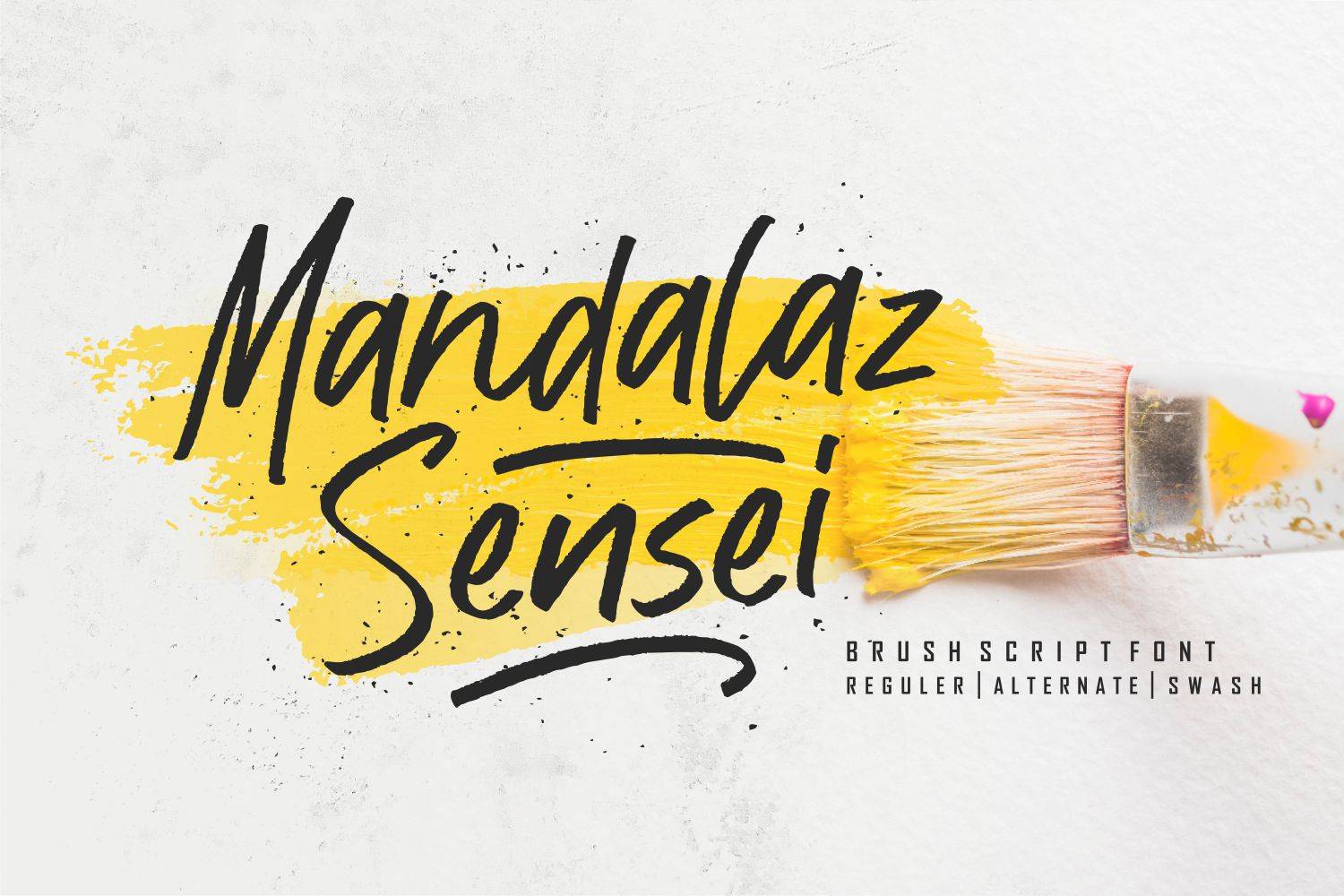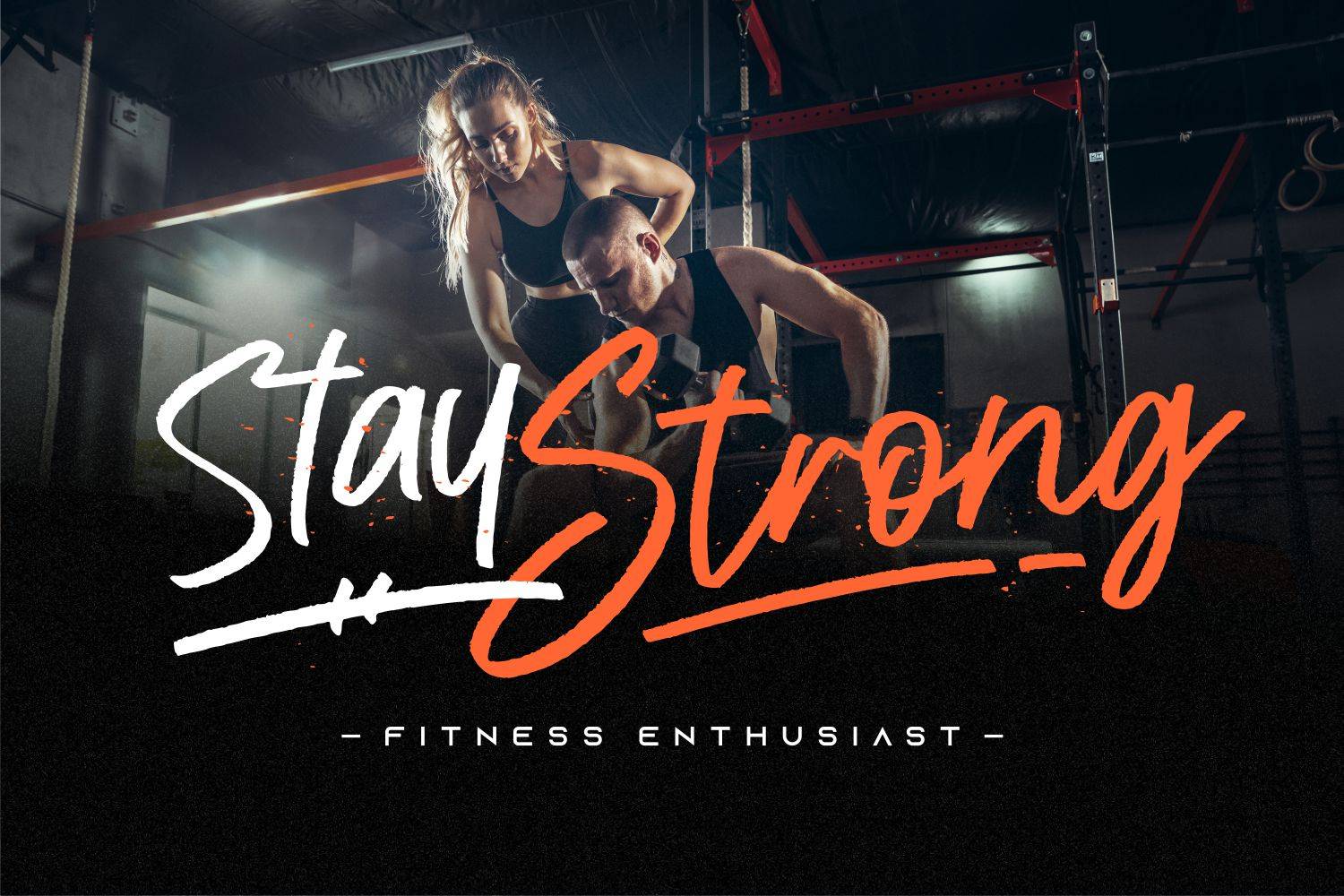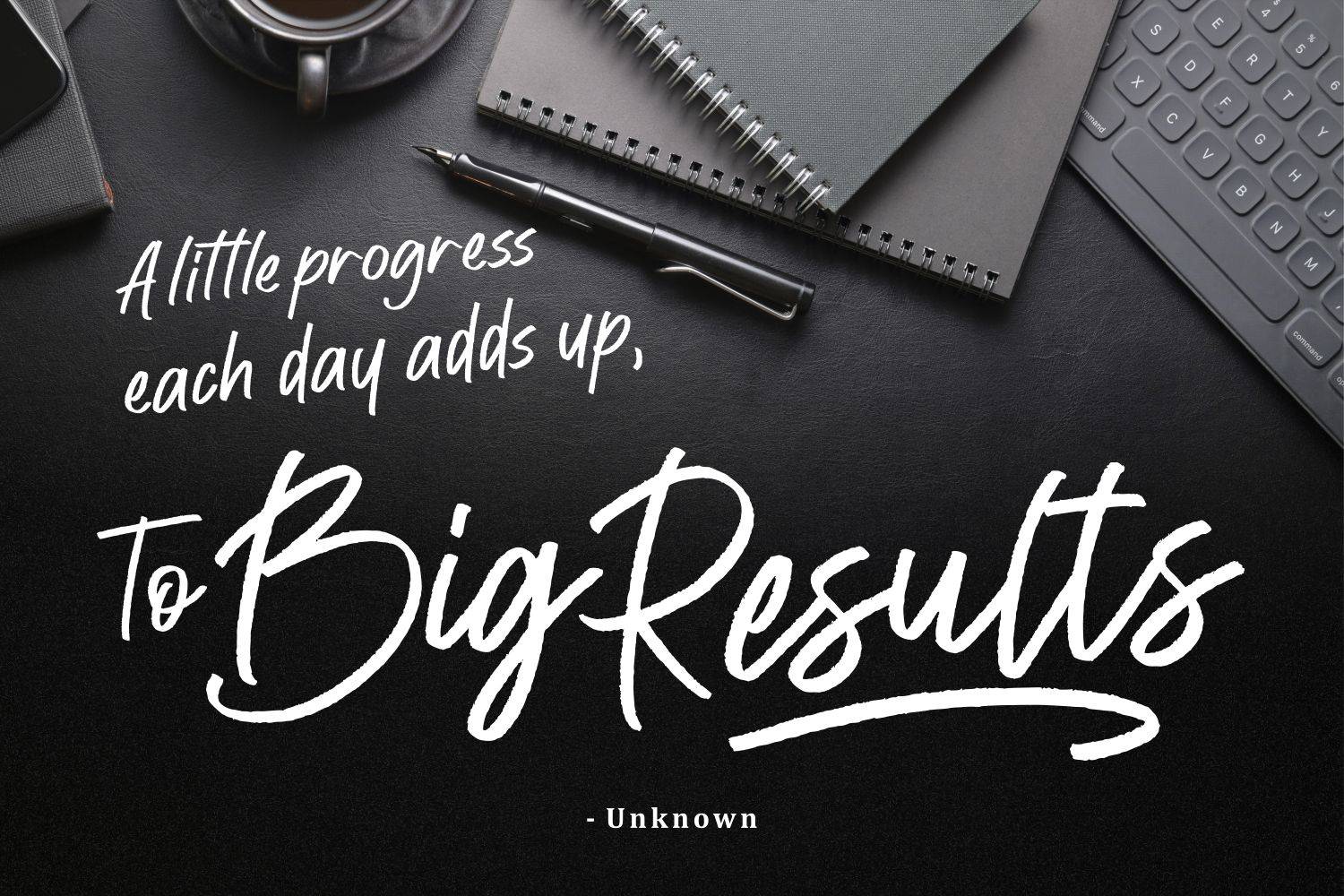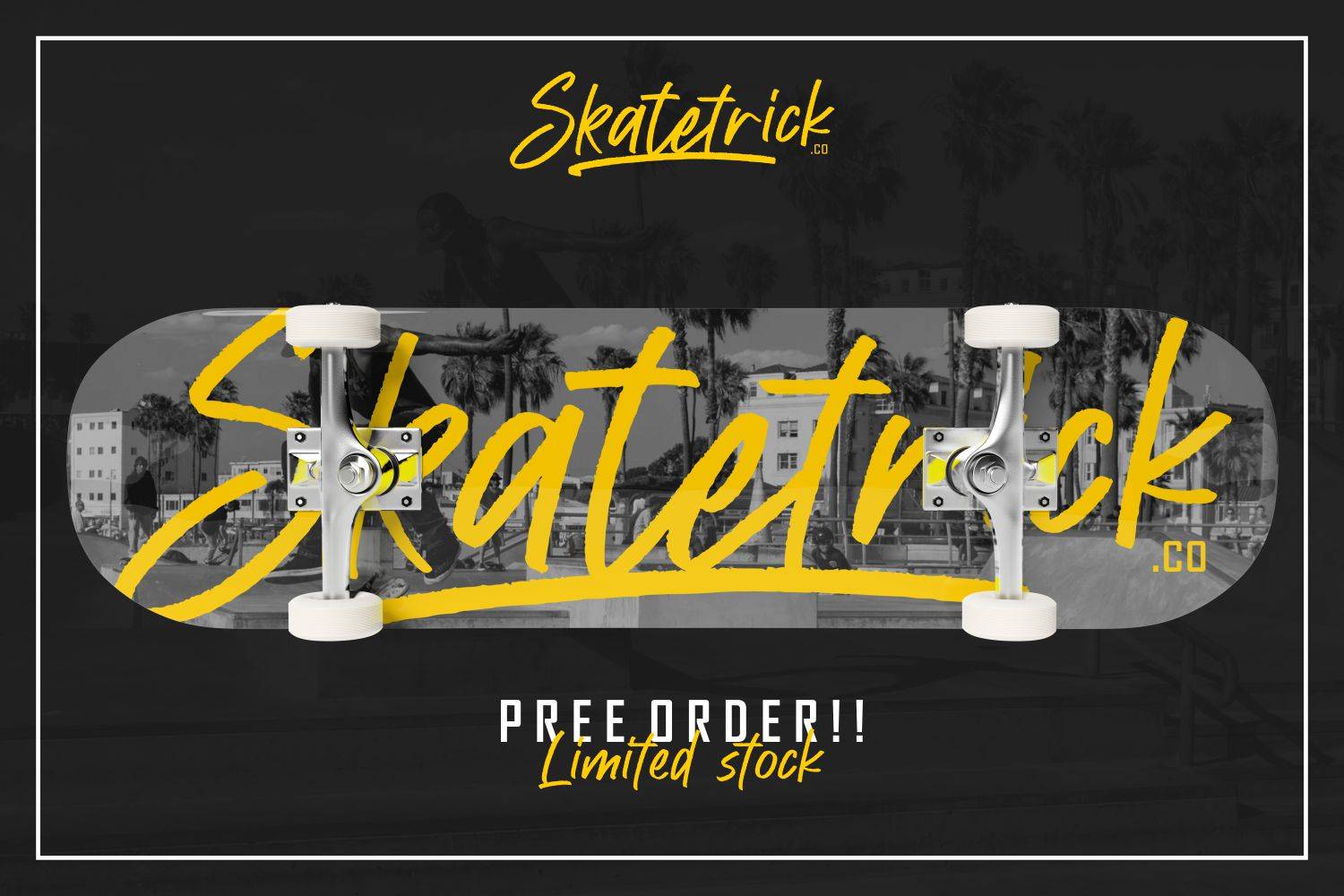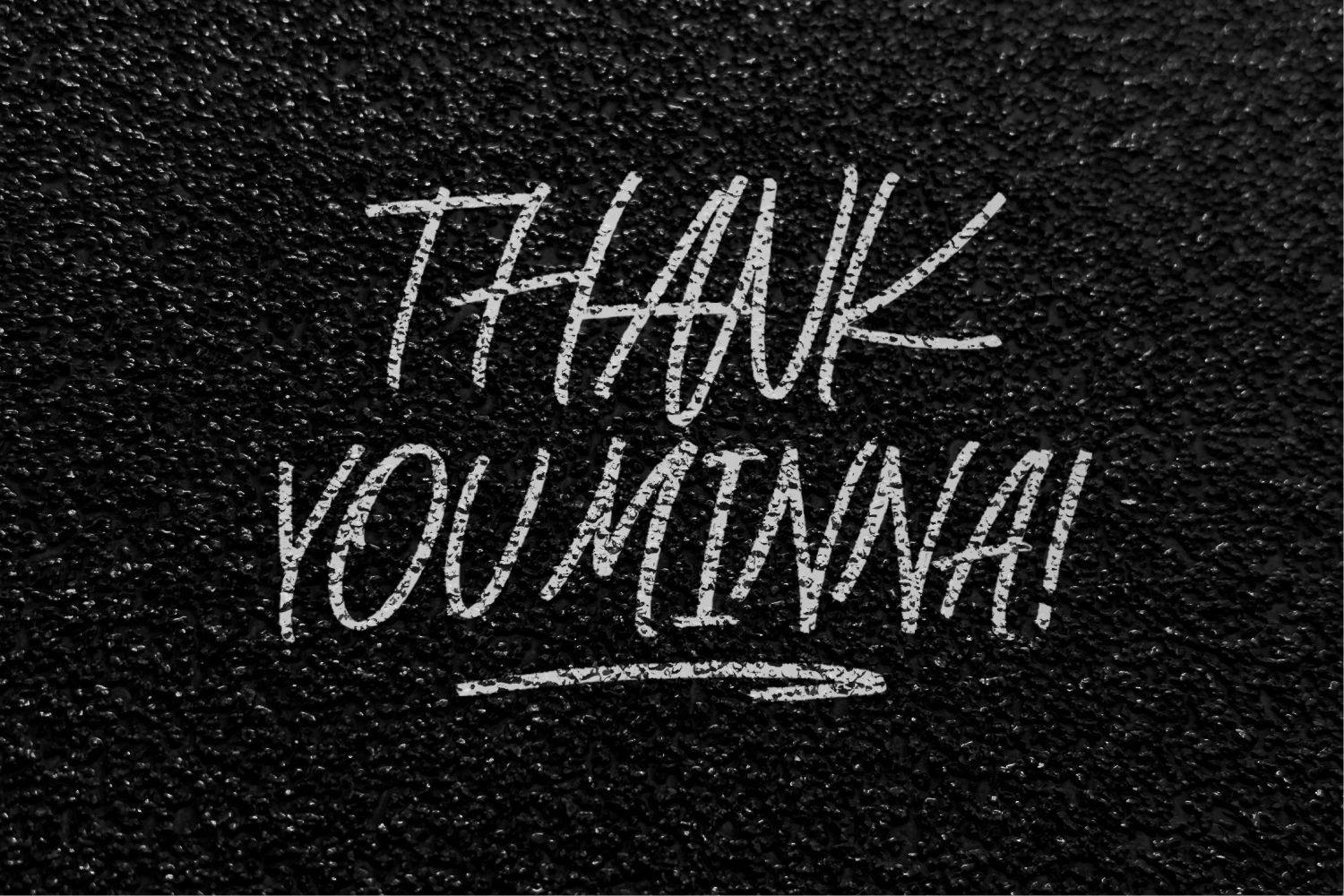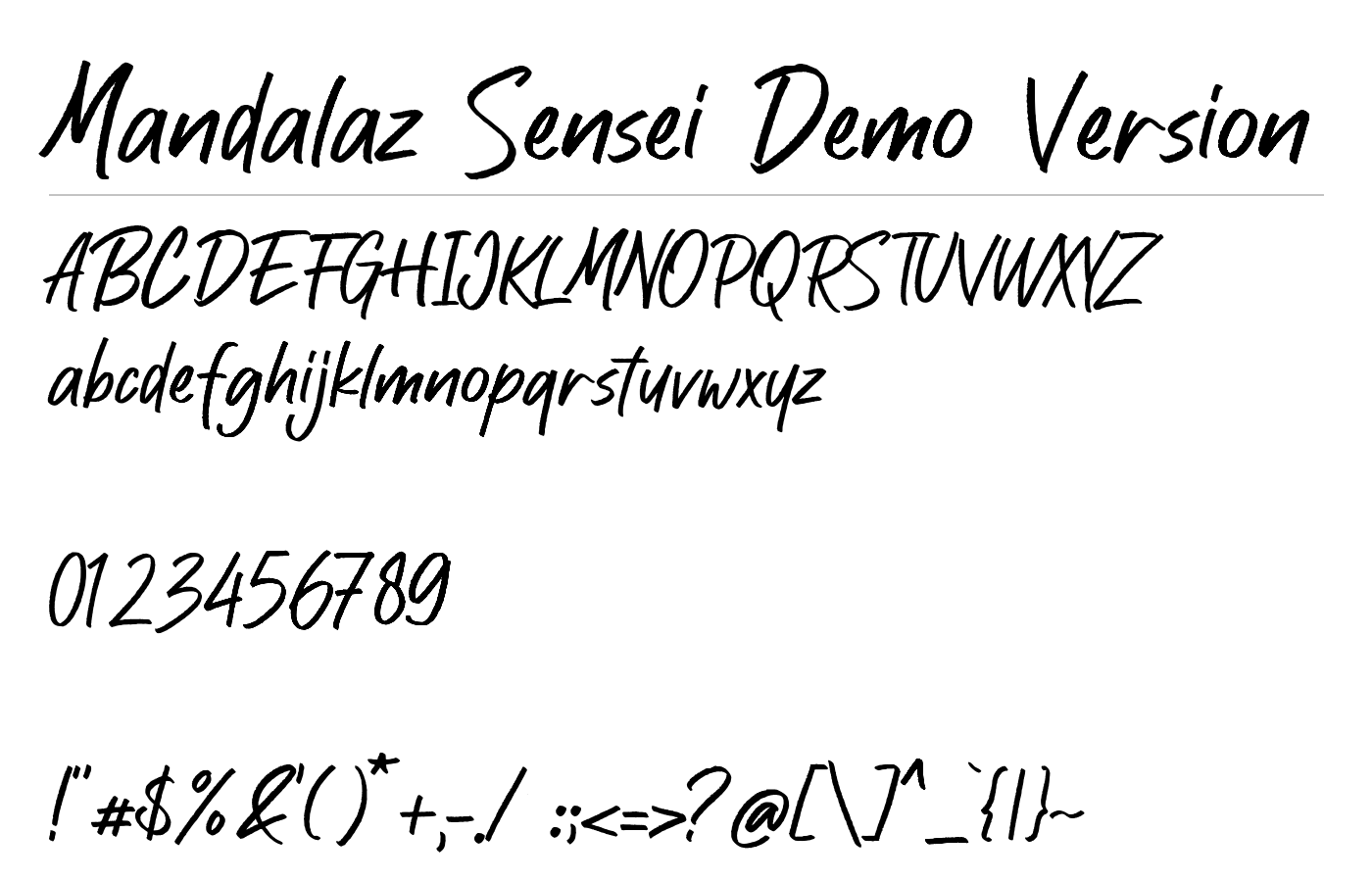
Mandalaz Sensei is a lively, handwritten script font with a casual and energetic feel, featuring fluid, slightly slanted letterforms that mimic natural brush strokes. Its medium weight and moderate contrast give it an approachable yet dynamic personality, making it ideal for creative projects, personal branding, and playful headlines where a touch of spontaneity and warmth is desired. This font works well in informal contexts such as invitations, logos, and social media graphics, where a friendly and authentic vibe is important.
Mandalaz Sensei Font
About Mandalaz Sensei Font